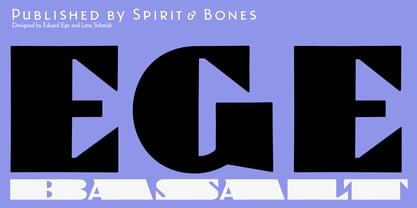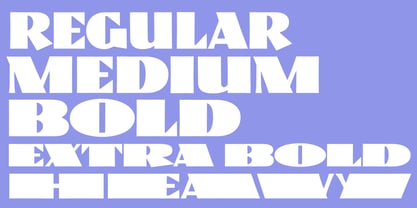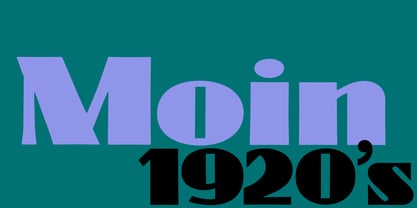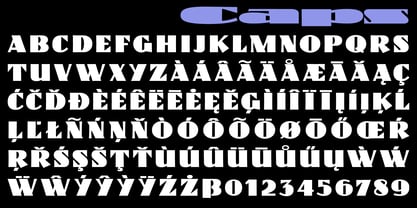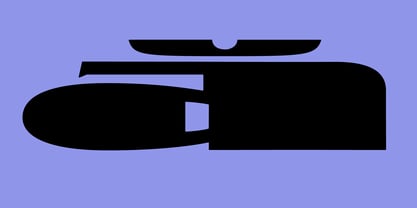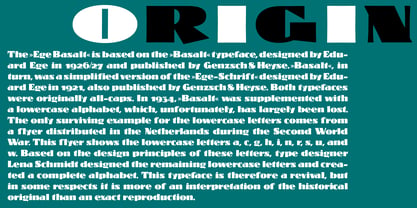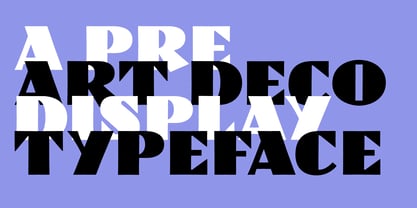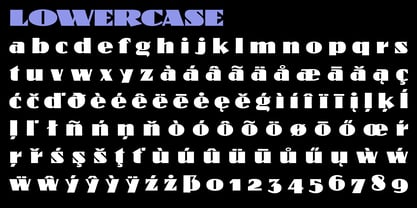
Ege Basalt
by Spirit & Bones
The Ege Basalt Font Family was designed by Lena Schmidt and published by Spirit & Bones. Ege Basalt contains 5 styles and family package options. More about this family
The »Ege Basalt« typeface is derived from the original »Basalt« typeface, created by Eduard Ege in 1926/27 and published by Genzsch & Heyse. The »Basalt« typeface itself was a simplified version of the »Ege-Schrift«, also designed by Eduard Ege in 1921 and published by Genzsch & Heyse. Initially, both typefaces were exclusively all-caps. In 1934, »Basalt« was enhanced with a lowercase alphabet, which has unfortunately been largely lost to time. The only surviving example of the lowercase letters is found in a flyer distributed in the Netherlands during World War II, showcasing the letters a, c, g, h, i, n, r, s, u, and w. Drawing inspiration from the design principles of these surviving letters, type designer Lena Schmidt crafted the remaining lowercase letters, resulting in a complete alphabet. As such, this typeface serves as a revival, but it leans more towards an interpretation of the historical original rather than a precise reproduction. Ideal for branding, editorial design, and web applications, the »Ege Basalt« typeface combines historical significance with modern usability, making it a versatile choice for various design projects.